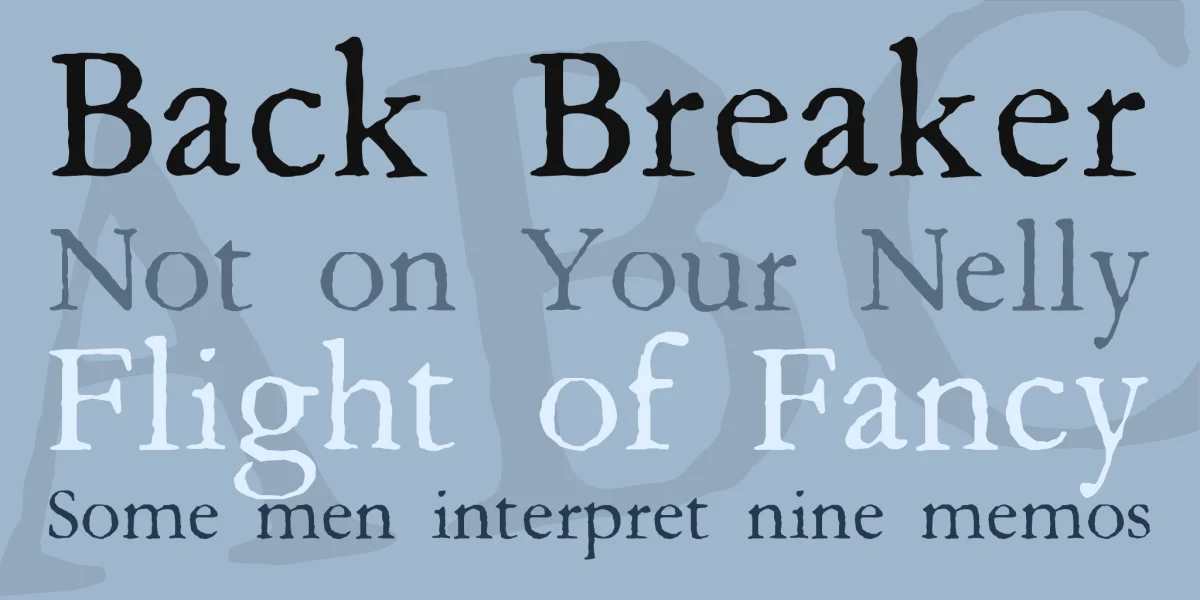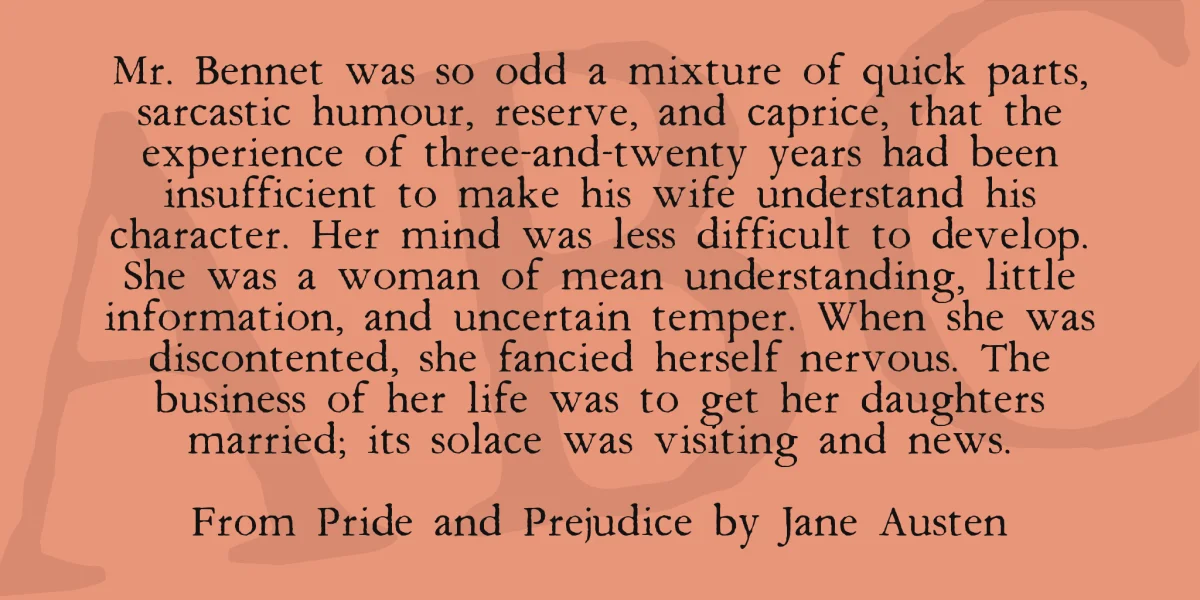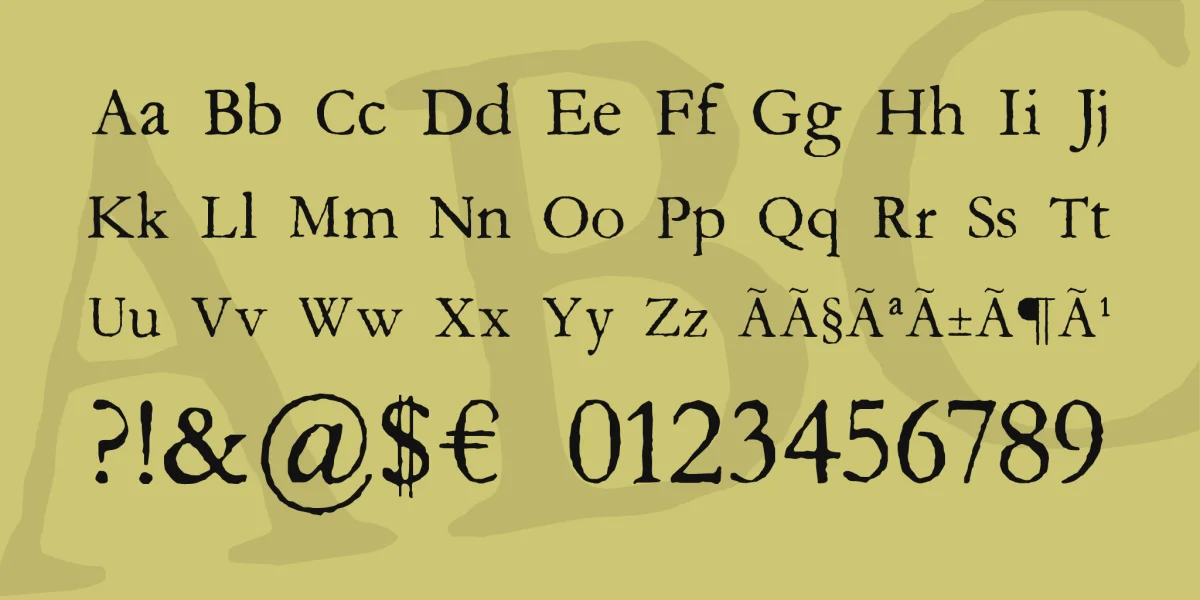
The Aquifer font is an antique serif font based on Garamond. It comes with alphanumeric symbols, punctuation, currency symbols and international symbols.